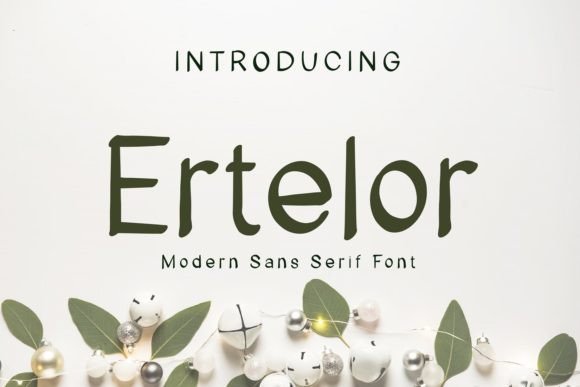
Enter the Ertelor Font, a playful sans-serif font that’s designed to add a touch of whimsy to your work. Whether you’re creating posters, invitations, or any other design project, Ertelor is the perfect companion to help you express your imagination. With its fun and creative vibe, Ertelor Font is ideal for designers who want to add a unique twist to their designs.
So, what makes Ertelor Font so valuable for designers? Its versatility and ability to add a playful touch to any design make it a must-have in every designer’s toolkit.
Ertelor Font Key Features
- Font Family: Ertelor is a sans-serif font family.
- Unique Characteristics: Ertelor features a clean and modern design with rounded edges and open apertures, making it ideal for digital and print media.
Ertelor Font Review
Overall, I think the Ertelor Font is a decent choice for body text, but it may not be the most exciting option for titles or headings.
- Legibility: The font is easy to read, even at smaller font sizes.
- X-height consistency: The x-height of the font is consistent across all weights, which makes it easy to use in long blocks of text.
- Font weight options: The font comes in a variety of weights, which can be useful for creating visual hierarchy in your design.
- Lack of personality: The font is fairly neutral and doesn’t have a strong personality, which may make it hard to stand out in a crowded market.
- Not ideal for titles: The font may not be the best choice for titles or headings, as it can be a bit too plain and lacks the visual impact you might want.
- Not suitable for display text: The font is not designed for display text, such as headings or titles, and may not be the best choice for those applications.
The Ertelor Font is a solid choice for body text, but it may not be the most exciting option for titles or headings. If you’re looking for a font that’s easy to read and has a variety of weights, it might be worth considering.
Ertelor Font is commonly used for:
- Typography-based designs
- Brand identities
- Marketing materials
Alternatives to Ertelor Font
Montserrat is a sans-serif font that is highly legible and versatile. It’s perfect for use in digital products, signage, and other applications where clear communication is key. Montserrat is more geometric and modern compared to Ertelor Font, which has a more rounded and elegant feel.
Open Sans is another popular sans-serif font that is highly readable and works well in a variety of contexts. It’s a great choice for digital products, magazines, and other applications where a clean and modern aesthetic is desired. Open Sans is more neutral and clean compared to Ertelor Font, which has a more distinctive and artistic feel.
Lato is a sans-serif font that is highly legible and elegant. It’s perfect for use in digital products, signage, and other applications where a sophisticated and modern aesthetic is desired. Lato is more condensed and modern compared to Ertelor Font, which has a more relaxed and organic feel.